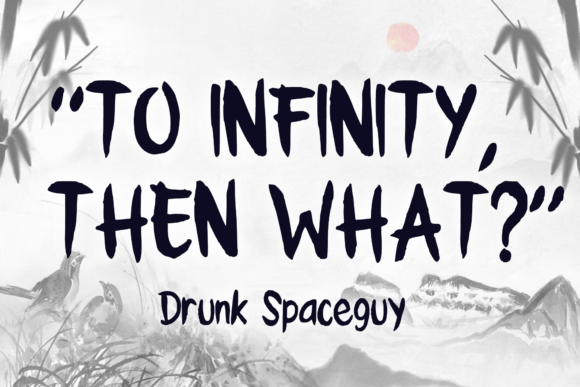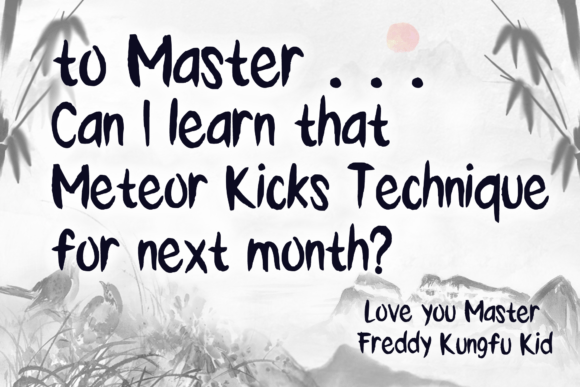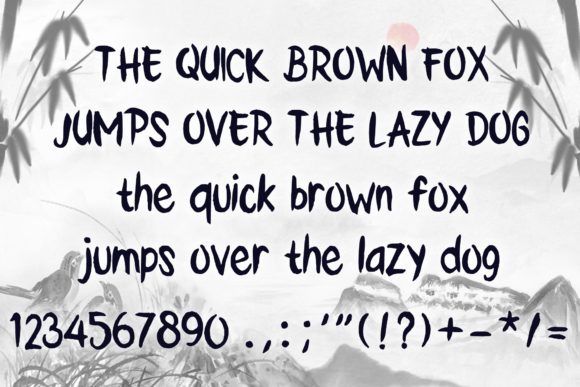
Introduction to Asian Sumi Font
Asian Sumi is a beautiful and playful sumi brush ink on paper handmade font.
You can use it for anything ranging from t-shirts, book designs, and greeting cards to stickers and posters, packaging designs, or anything that needs a casual touch, it will be your perfect font to pick Fall in love with its incredibly versatile style, and use it to create lovely designs.